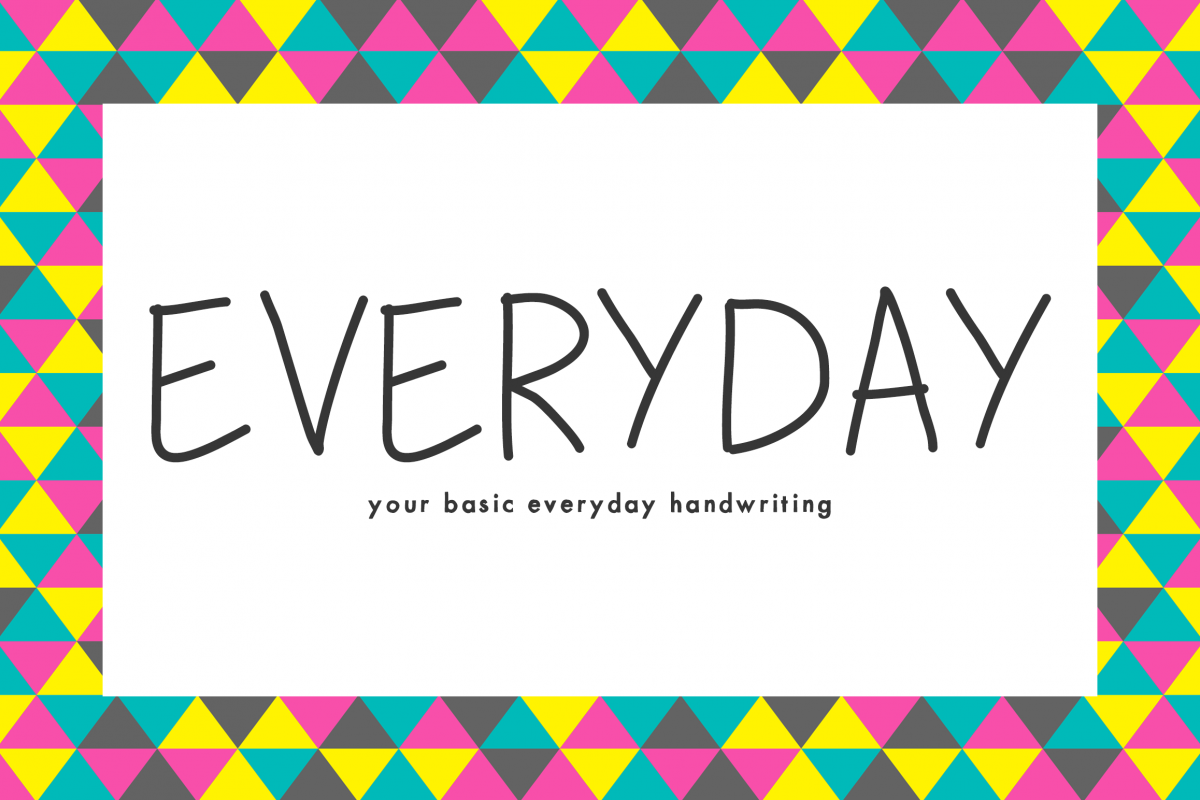
Everday - Your Basic Everyday Handwriting
Mix Everyday
MIX EVERYDAY, as the font name implies, is perfect for everyday anyday use. It's the right amount of au naturale handwriting. Use it for scrapbooking, and other crafty projects!